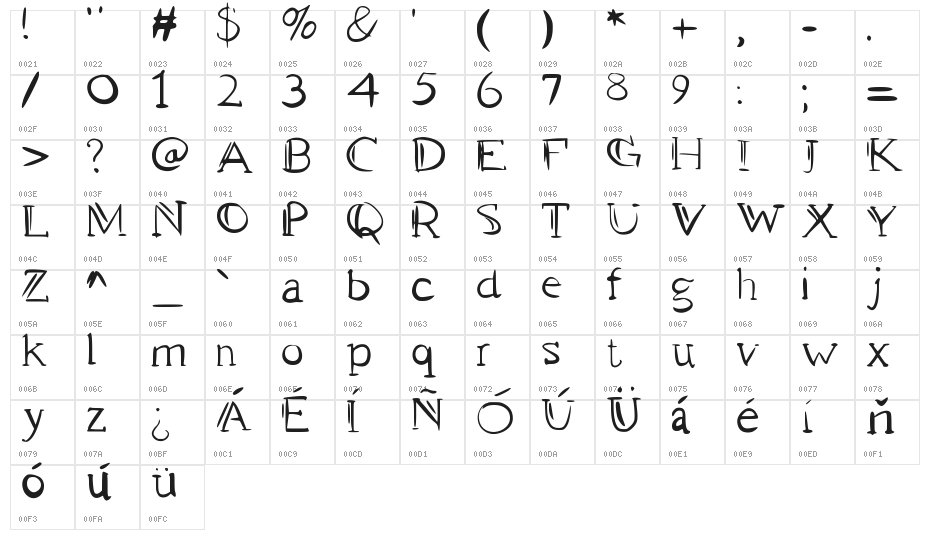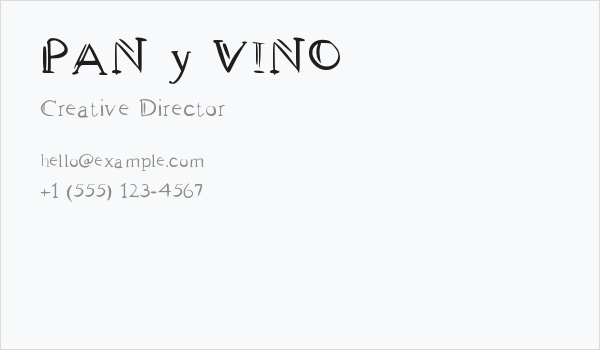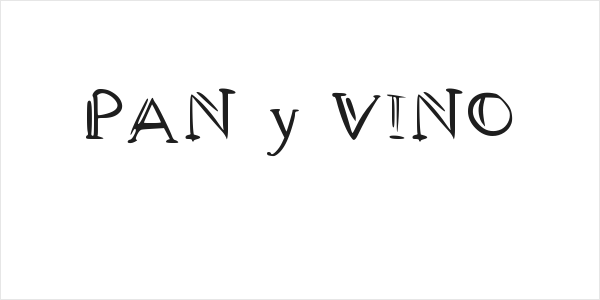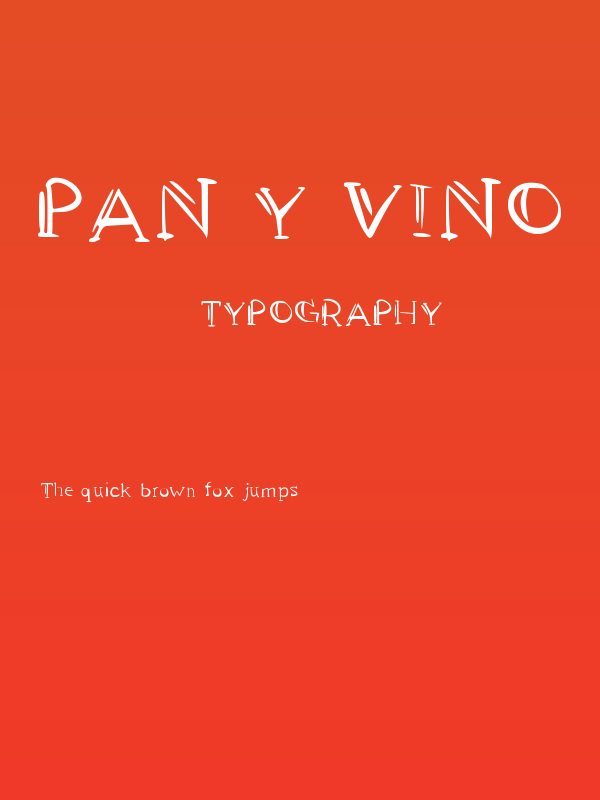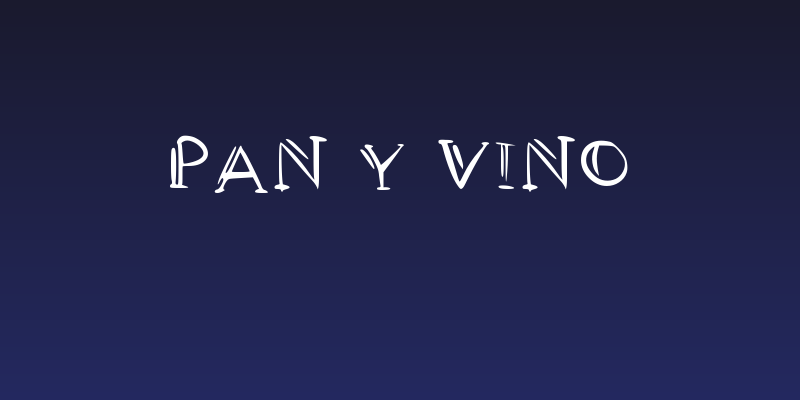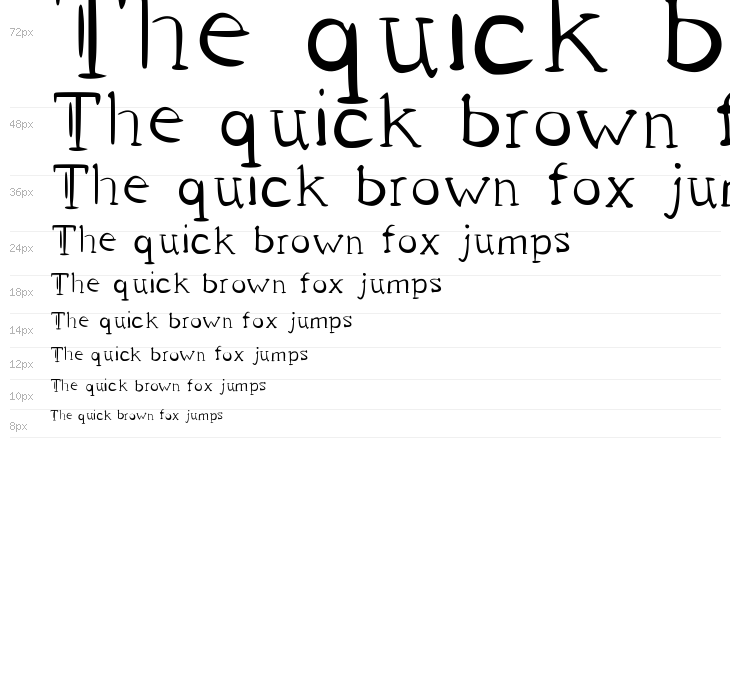
PAN y VINO Font
PAN y VINO Description
This font features a unique blend of playful and artistic elements, characterized by its irregular and whimsical strokes. The uppercase letters exhibit a dynamic and slightly distorted appearance, giving them a hand-drawn feel. The lowercase letters maintain a more consistent style, yet still carry a sense of individuality with their varied stroke weights. Numbers are bold and slightly exaggerated, adding to the font's overall quirky charm. Special characters are creatively designed, enhancing the font's artistic appeal. This font is perfect for projects that require a touch of creativity and personality.
| Overall Style | Artistic, Whimsical |
| Use Case | Headlines, Posters, Creative Branding |
| Proposed Projects | Ideal for creative projects such as children's books, artistic posters, and unique branding materials. |